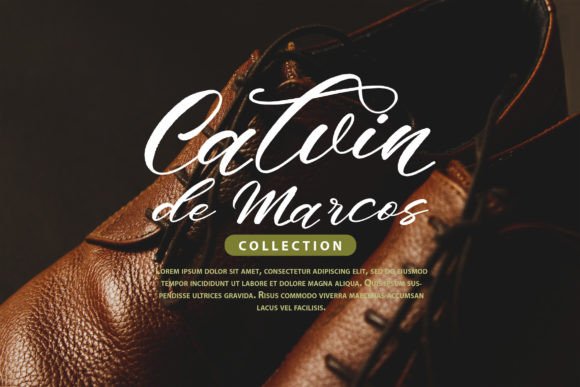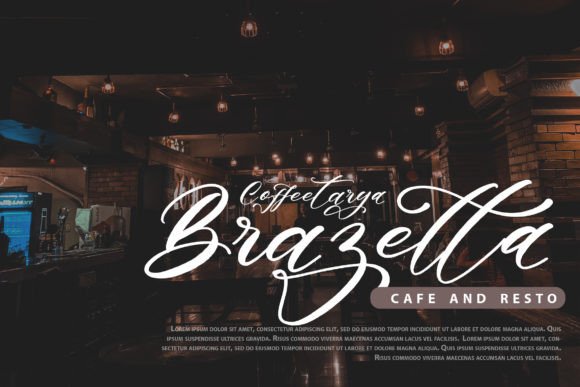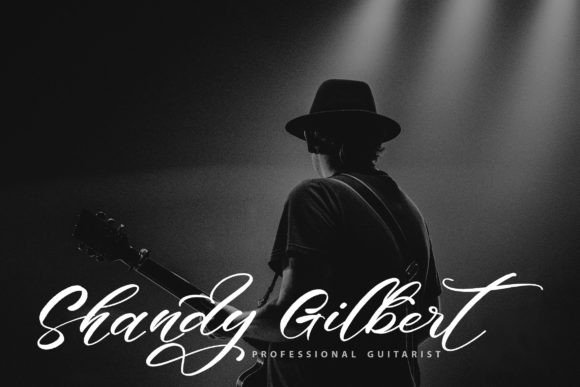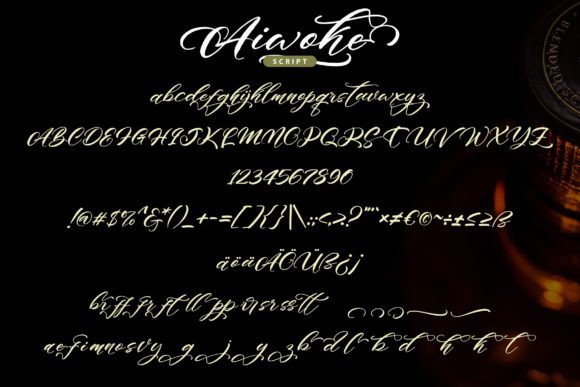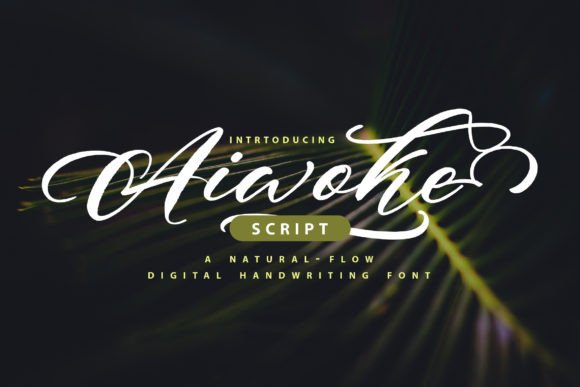
The Aiwoke Font: Elevate Your Creations with Elegance
Have you ever been in the middle of a design project, and suddenly, you’re stuck on finding the perfect font? I recall a recent experience where I was working on a client’s branding project, and I just couldn’t seem to find a font that captured the essence of their elegant and natural brand. That’s when I stumbled upon the Aiwoke font, and it completely transformed my design. In this article, I’ll share my journey with Aiwoke, its features, and how you can make the most of this beautiful script font in your designs.
A Personal Encounter with Aiwoke
Aiwoke is a bold and exquisite script font that has become a staple in my design toolkit. Its stylish, graceful, and flowing nature immediately caught my attention. I was working on a project that required a font that could convey a sense of sophistication and natural elegance. Aiwoke fit the bill perfectly, and I was able to deliver a design that exceeded my client’s expectations.
An Honest Review of Aiwoke
What I Love About Aiwoke ✨
• 💫 Elegant and flowing script style that adds a touch of sophistication to any design
• ✅ Highly versatile and works well for a variety of design projects, from branding to wedding invitations
• 🎨 Beautifully crafted with attention to detail, making it a joy to work with
• 📈 Excellent for headlines, titles, and short paragraphs, where a touch of elegance is desired
• ⚠️ Aiwoke is a script font, which may not be suitable for body text or long paragraphs
• ⚠️ Some users may find the font a bit too ornate for certain design projects
The Backstory of Aiwoke
Aiwoke was designed by a team of talented typographers who aimed to create a font that would capture the essence of elegance and natural sophistication. The font was inspired by traditional calligraphy and modern script styles, making it a unique and versatile addition to any design project.
Font Name Aiwoke Font
Author Vunira
Q: What is Aiwoke font?
A: Aiwoke is a bold and exquisite script font designed for creative professionals and hobbyists.
Q: Is Aiwoke suitable for body text?
A: While Aiwoke is a beautiful font, it’s best suited for headlines, titles, and short paragraphs. For body text, a sans-serif font may be more suitable.
Q: Is Aiwoke available in different font styles?
A: Yes, Aiwoke comes in various font styles, including bold, italic, and stylistic alternates, making it a versatile font for different design projects.